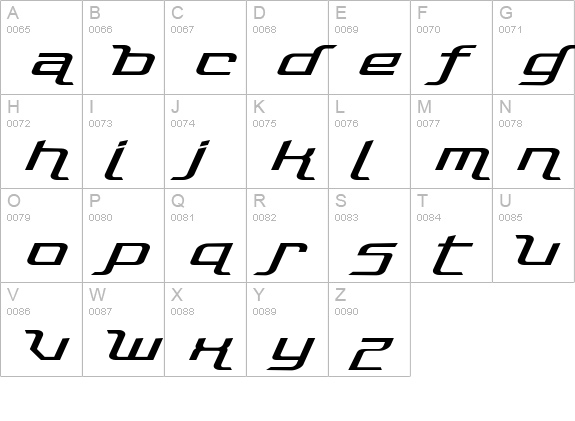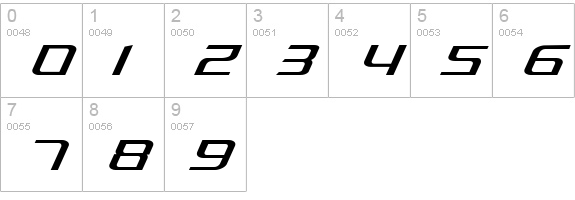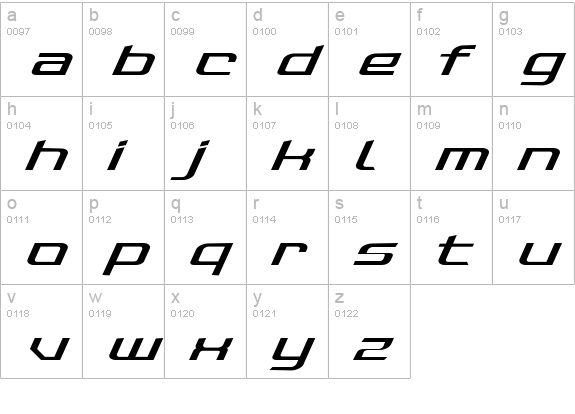
Photonica Font Details
Photonica is a free for personal use font in the Modern > Techno category. It has been downloaded 84 times and is available for Windows, Mac and Linux.
Photonica font is a stunning and versatile typeface that is sure to captivate and inspire. With its sleek lines and modern design, this font is perfect for a wide range of creative projects, from branding and advertising to web design and print materials. What sets Photonica font apart is not only its aesthetic appeal, but also its accessibility. Unlike many other fonts on the market, Photonica is available for free, making it an excellent choice for designers and creatives on a budget. Whether you're a professional designer or a hobbyist, you can now enjoy the beauty and functionality of this font without breaking the bank. To make things even better, downloading Photonica font is incredibly easy. Simply head over to FontsMarket.com, where you can freely download this fantastic typeface with just a few clicks. FontsMarket.com offers a user-friendly interface and a vast collection of fonts, making it a go-to destination for designers seeking high-quality, free fonts. So why wait? Enhance your design projects with the elegance and versatility of Photonica font. Download it for free today at FontsMarket.com and experience the difference it can make in your creative endeavors.